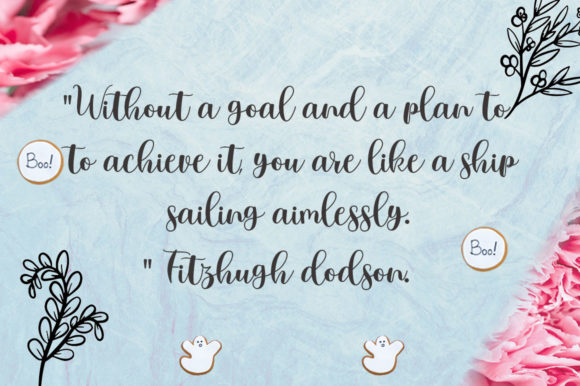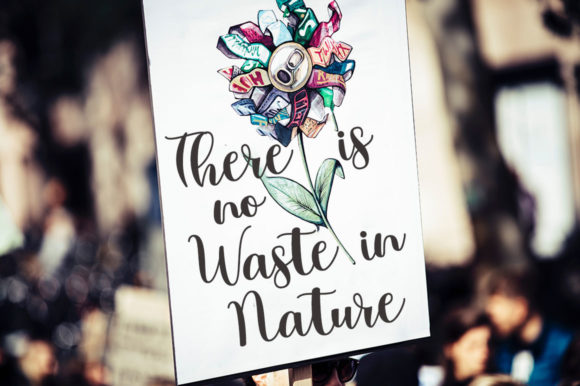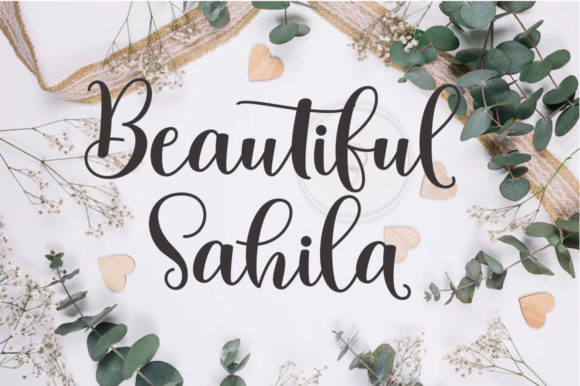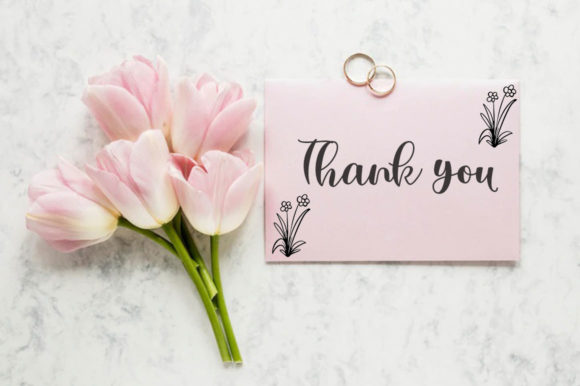
Bastien Sabila Font
About Bastien Sabila Font
“Bastien Sabila” is a free-flowing script font crafted for a wide range of applications, including packaging products, invitation cards, flyers, mockups, event posters, and more. With a beautiful and balanced character, this font brings high-quality vibes to diverse design projects. Notably, it is PUA encoded, allowing effortless access to all the glyphs and swashes.
The free-flowing nature of “Bastien Sabila” lends a sense of fluidity and dynamism to the text, making it particularly suitable for packaging products. Whether applied to labels, tags, or other packaging materials, the font contributes to a visual identity that is both stylish and captivating.
Invitation cards benefit from the font’s balanced character, which adds a touch of elegance to the text. The script style enhances the overall aesthetic, creating invitations that feel both refined and inviting.
Flyers and event posters gain a dynamic and high-quality appeal with the use of “Bastien Sabila.” Its versatility allows for eye-catching headlines and details, ensuring that the design stands out and captivates the audience.
In the realm of mockups, “Bastien Sabila” proves to be a valuable asset. Its free-flowing script style adds realism and authenticity to various visual representations, making the mockup design more engaging and relatable.
The PUA encoding of “Bastien Sabila” simplifies the design process, allowing designers to access a diverse range of glyphs and swashes with ease. This feature enhances the font’s usability, providing creative freedom to explore different design possibilities.
Overall, “Bastien Sabila” is more than just a font; it’s a versatile tool for elevating the quality and visual appeal of diverse design projects. Whether used for packaging, invitations, flyers, mockups, or event posters, this font adds a touch of high-quality vibes and balanced character to every application. Let “Bastien Sabila” be the choice for designs that demand both style and substance.